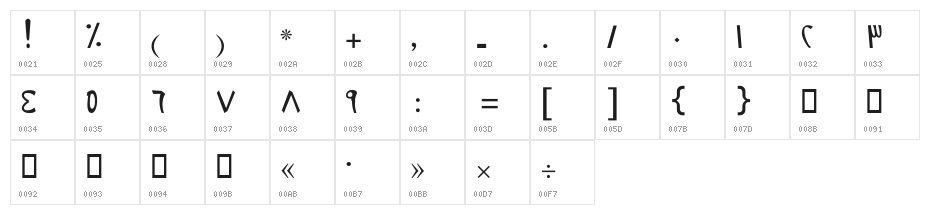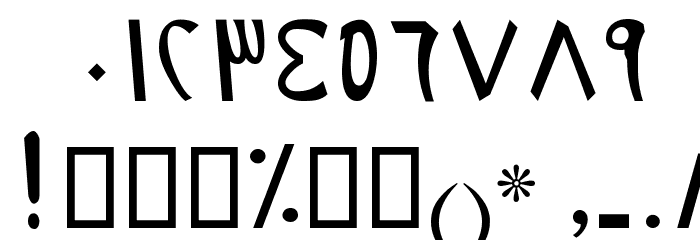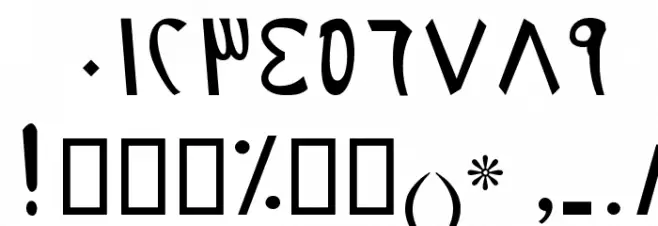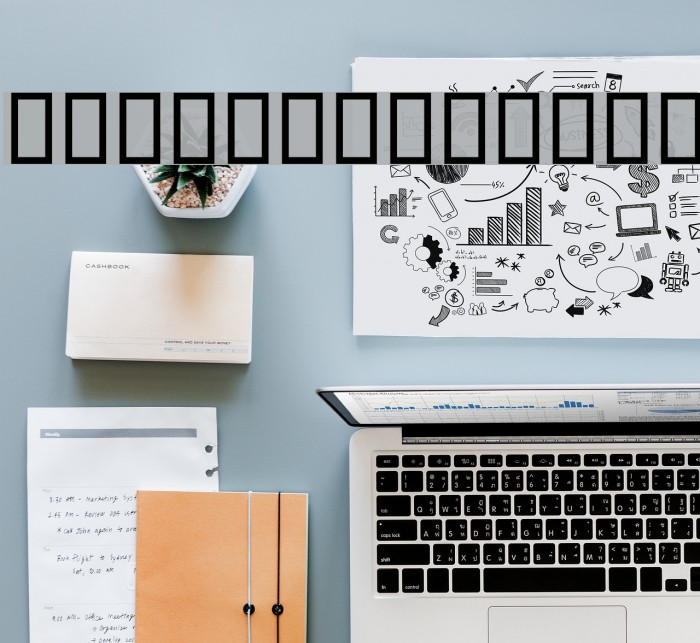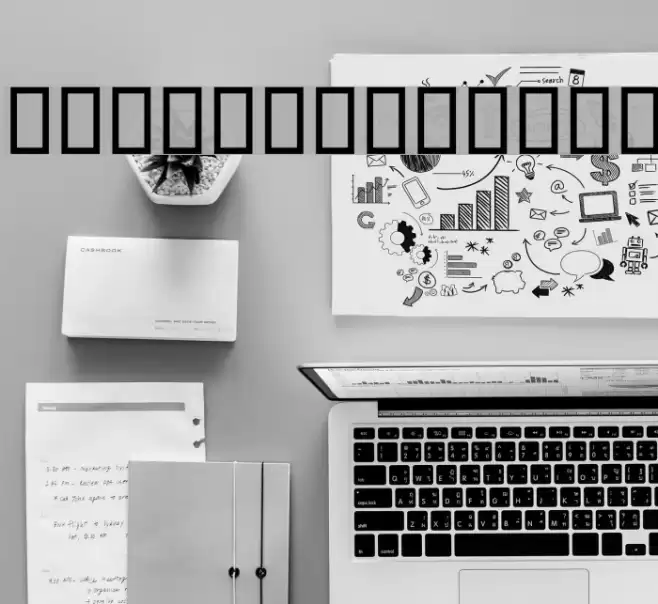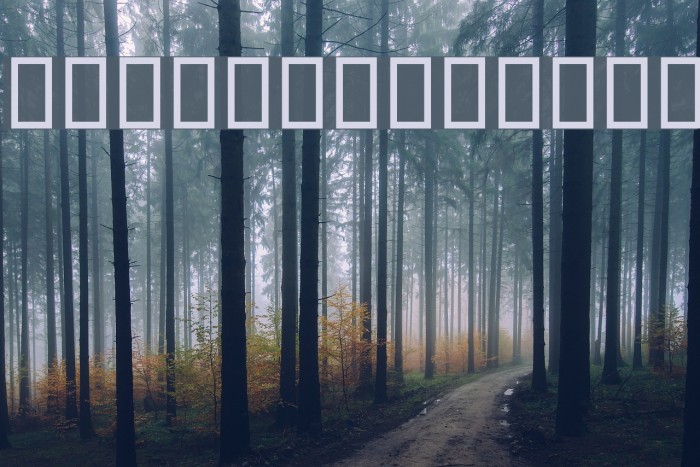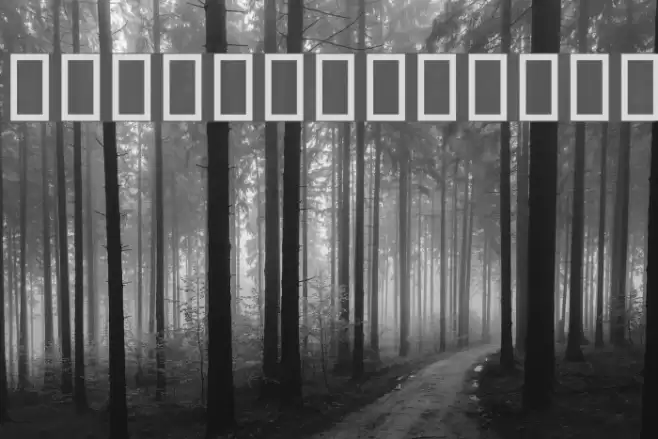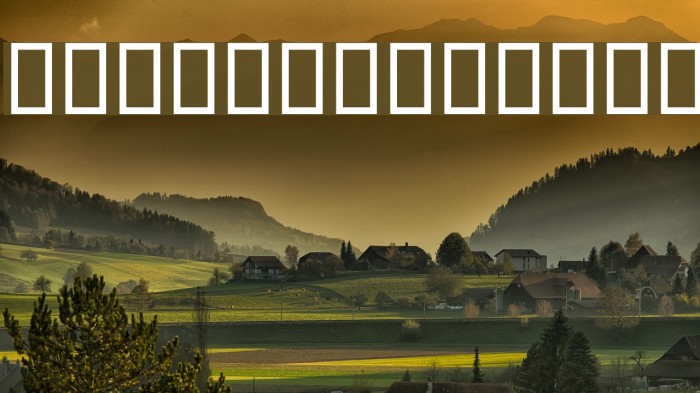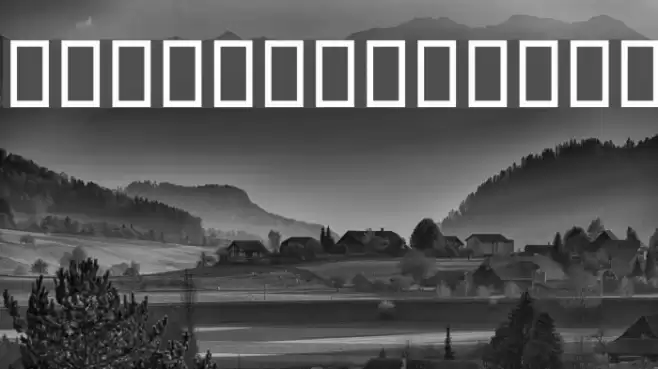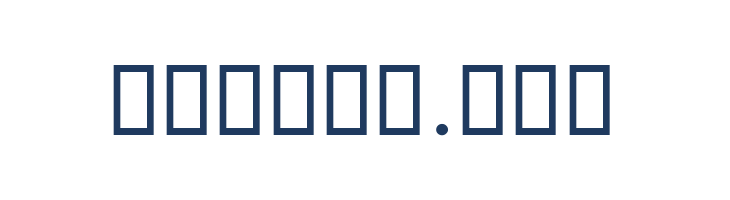
Helmand Font
Helmand Description
This font features a unique and artistic style with a playful and slightly irregular design. The characters have a hand-drawn appearance, giving them a whimsical and creative feel. The numbers are particularly distinctive, with varying stroke thicknesses and unconventional shapes that add to the font's charm. The special characters maintain this playful aesthetic, making the font suitable for projects that require a touch of individuality and creativity. The overall design is both eye-catching and memorable, making it ideal for artistic and informal applications.
| Overall Style | Artistic, Whimsical |
| Use Case | Headlines, Artistic projects, Informal text |
| Proposed Projects | Ideal for children's books, creative posters, artistic branding, and informal invitations. |